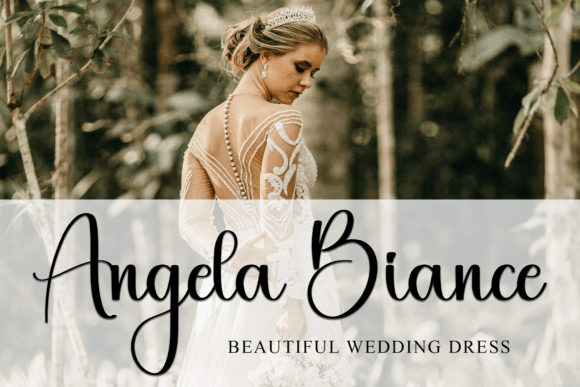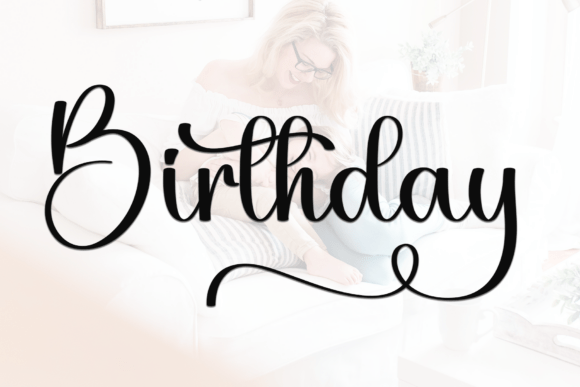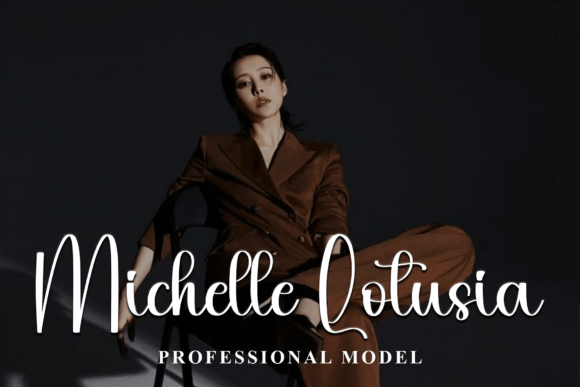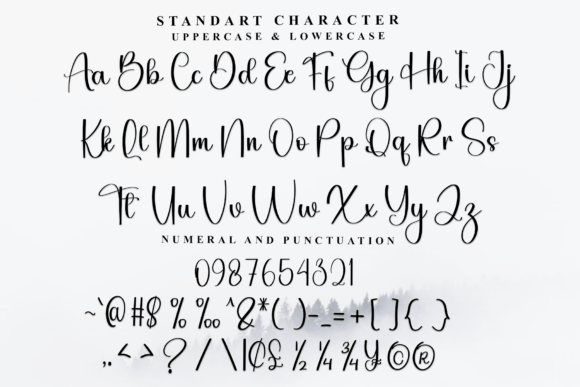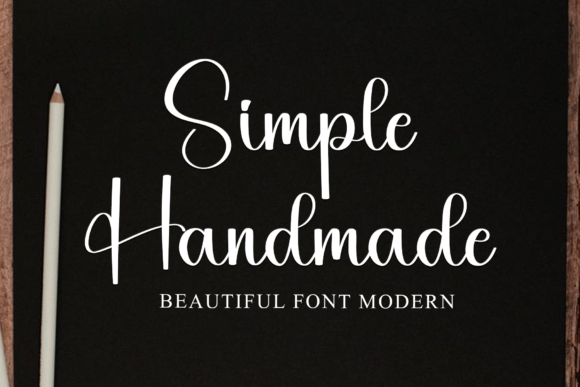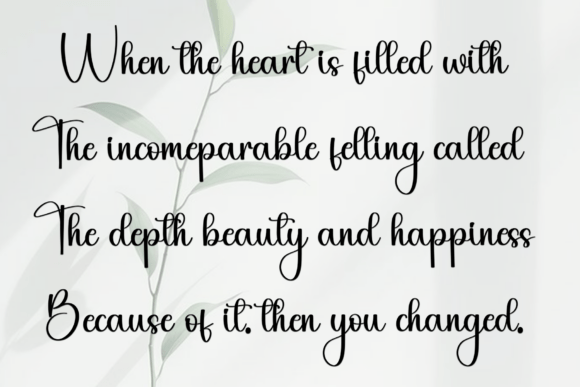
Introduction to Grandpa Birthday Font Font
Fonts play a crucial role in design, and the Grandpa Birthday Font font is a typeface that brings both character and versatility to any project. Whether you’re working on a branding project, a website, or a print design, the Grandpa Birthday Font font offers a unique style that can elevate your work.
Grandpa Birthday is a sweet and friendly font.
Key Features of Grandpa Birthday Font Font
Why Choose Grandpa Birthday Font Font?
The Grandpa Birthday Font font is more than just a typeface – it’s a design tool that helps you communicate your message with style and clarity. Its unique character set and versatile design make it suitable for a wide range of applications, from elegant invitations to bold headlines.
With its carefully crafted letterforms and balanced proportions, the Grandpa Birthday Font font ensures readability and visual appeal across all mediums.
What makes Grandpa Birthday Font font special?
The Grandpa Birthday Font font stands out with its unique design, exceptional readability, and versatility across various design applications.